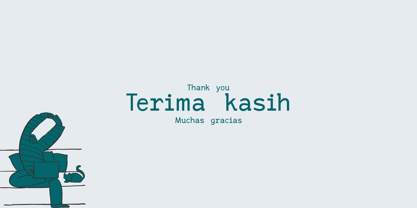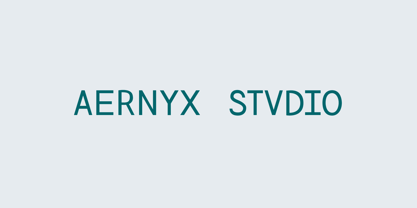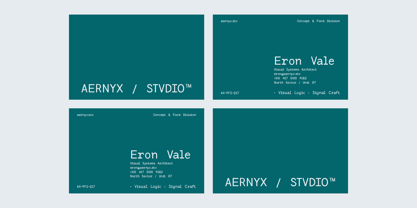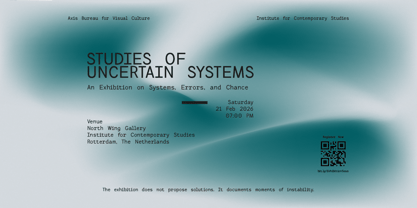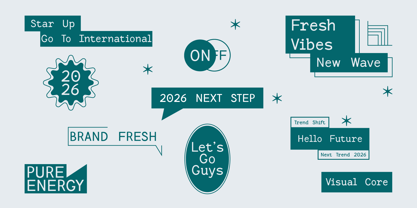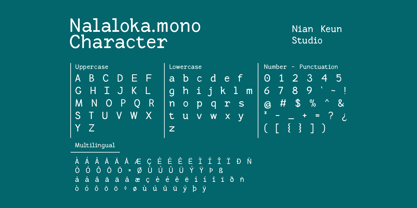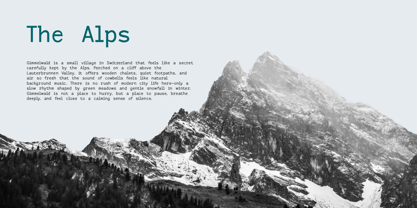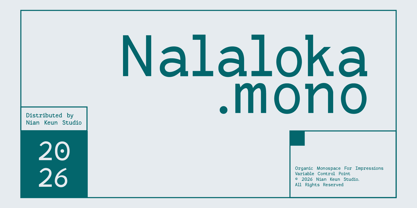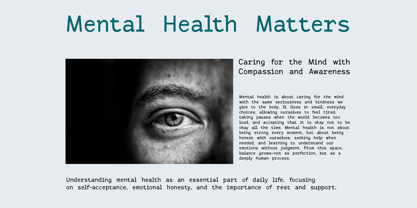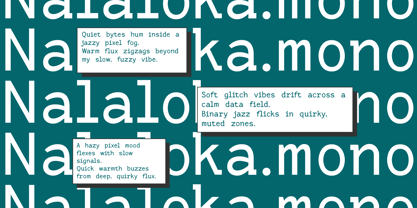
Nalaloka Mono
by Nian Keun Studio
The Nalaloka Mono Font Family was designed by Mugi Raharjo and published by Nian Keun Studio. Nalaloka Mono contains 1 styles. More about this family
Nalaloka Mono is a modern monospace typeface with an organic and expressive character. Designed to balance technical precision with visual warmth, this typeface offers consistent spacing while maintaining a distinctive and contemporary feel. Built for clarity and flexibility, Nalaloka Mono performs well across a wide range of applications—from editorial layouts, posters, and branding systems to digital interfaces and experimental typography. Its clean structure ensures readability, while subtle organic details add personality without compromising function. Nalaloka Mono is suitable for designers seeking a monospace font that feels systematic yet human, modern yet approachable. Perfect For * Editorial design * Posters & visual experiments * Branding & visual identity * UI / UX & digital interfaces * Coding-style layouts * Conceptual & modern typography * Publication & layout systems Style Classification * Monospace * Modern * Contemporary * Experimental * Clean * Technical * Minimal